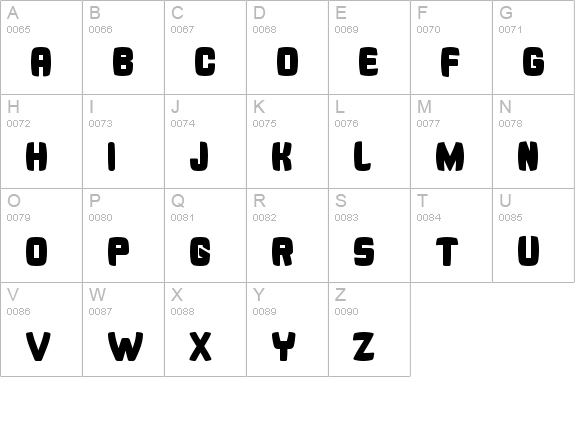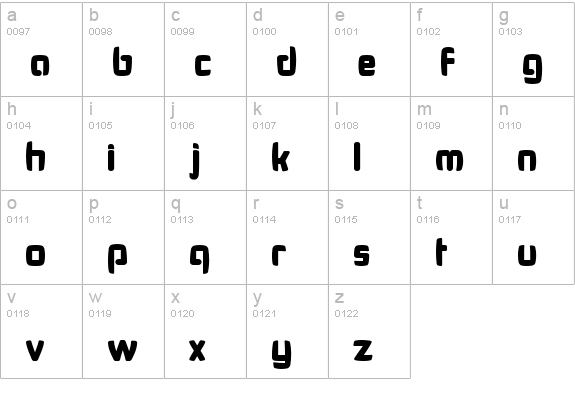
Bonk Fatty font is a fun and playful typeface that is sure to make a statement in any design project. With its bold and chunky letterforms, this font exudes a sense of energy and modernity. Perfect for headlines, titles, or any other attention-grabbing text, Bonk Fatty is a versatile choice for both print and digital applications. Best of all, this font is available for free download at FontsMarket.com. Whether you're a graphic designer, a student, or just someone looking to add a touch of personality to your projects, Bonk Fatty font is a fantastic option that won't cost you a penny. So go ahead and give your designs a boost with this dynamic and eye-catching typeface today!